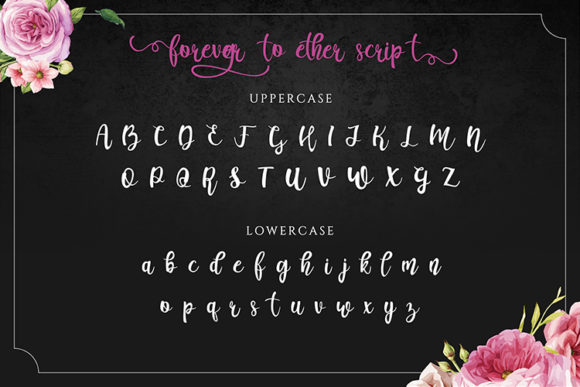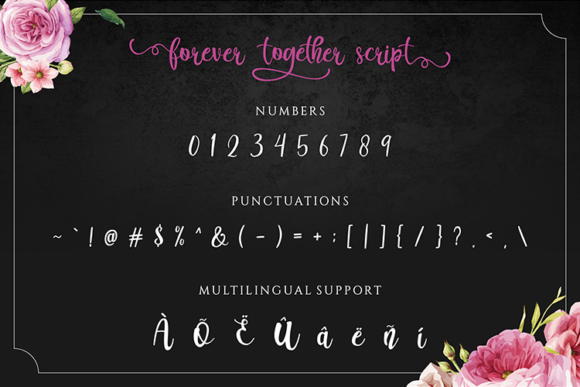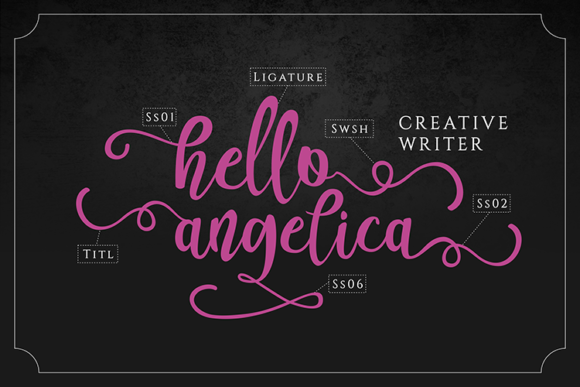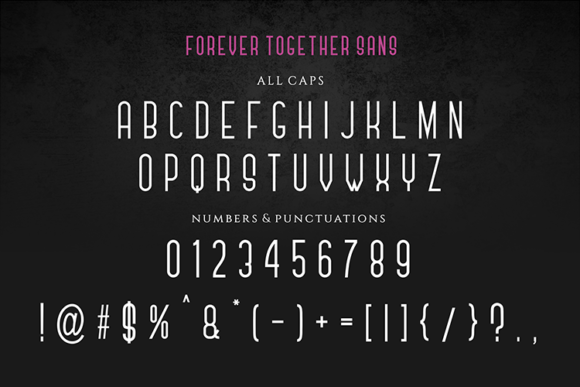
The Forever Together is a romantic font duo consisting of script fonts and sans serif fonts which can be paired perfectly. It has a striking and elegant style, and is perfect for creating unique designs.